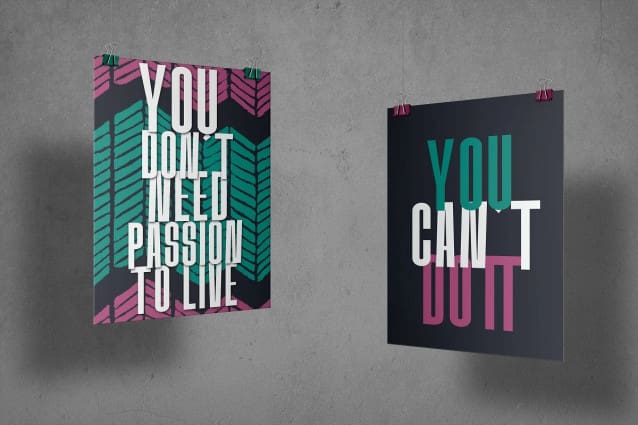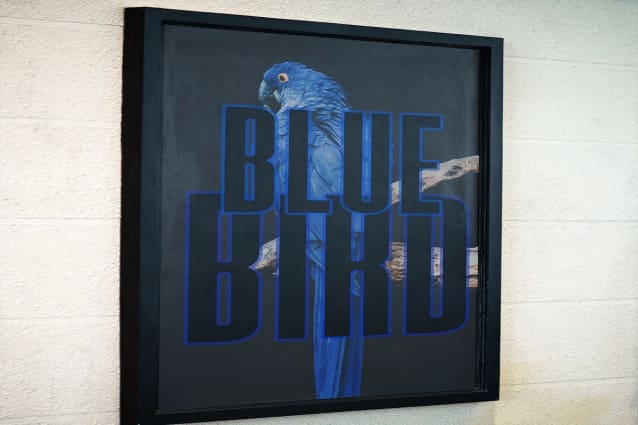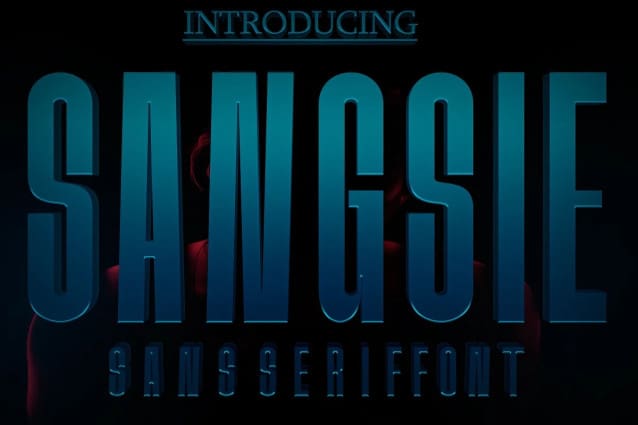
Sangsie Font
Sangsie Font is a beautiful handwritten font. Even though it looks simple, this font still looks cool and stylish.
This Font is perfect for logos, branding, wedding invitations, business cards, greeting cards, posters, magazines, social media, proliferate fonts, planner prints, and websites.